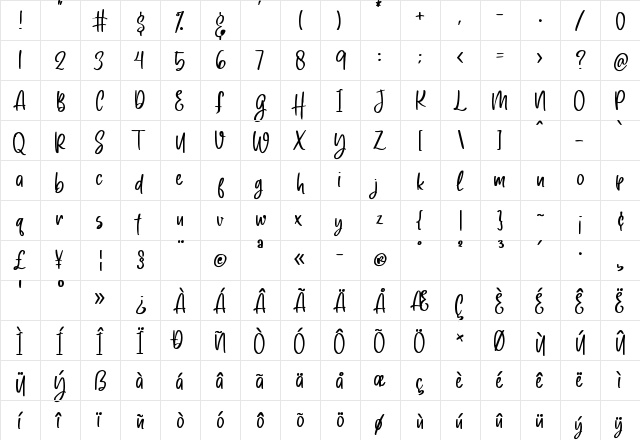
Heart Memory Regular
Design Context for Heart Memory Typeface
Heart Memory is a composed and adaptable typeface that performs quietly and consistently across a wide range of design contexts.